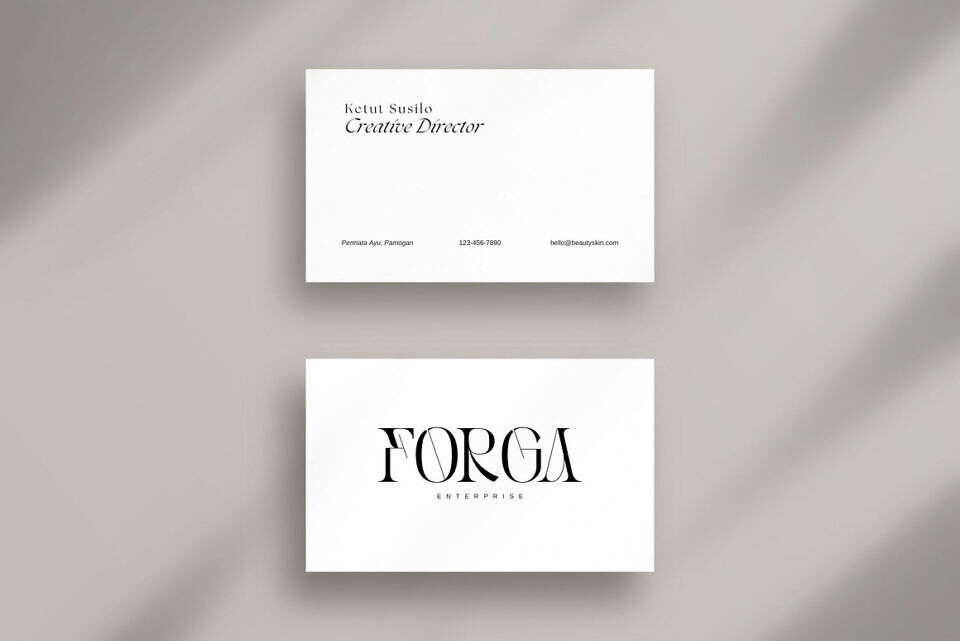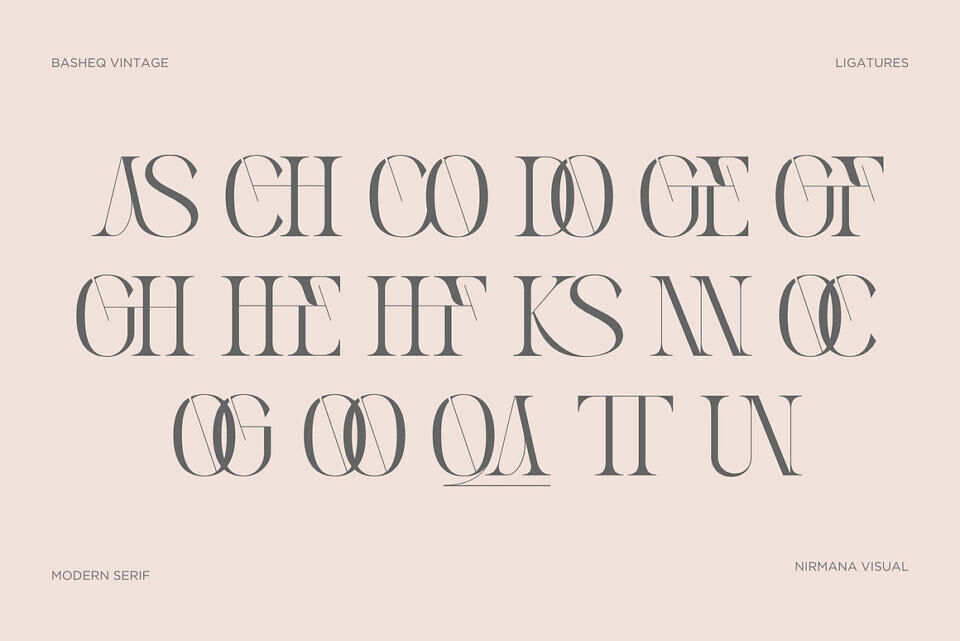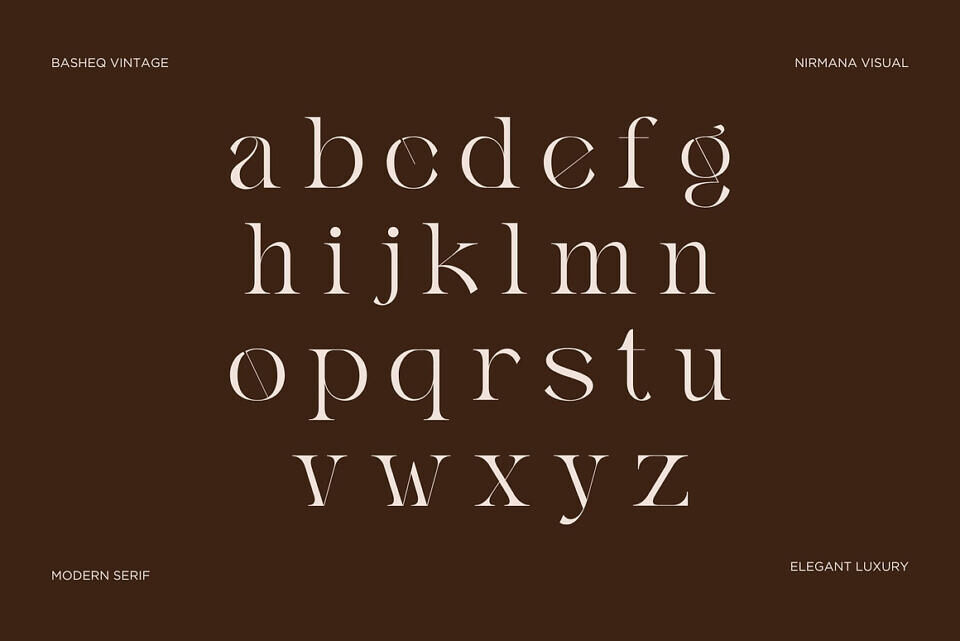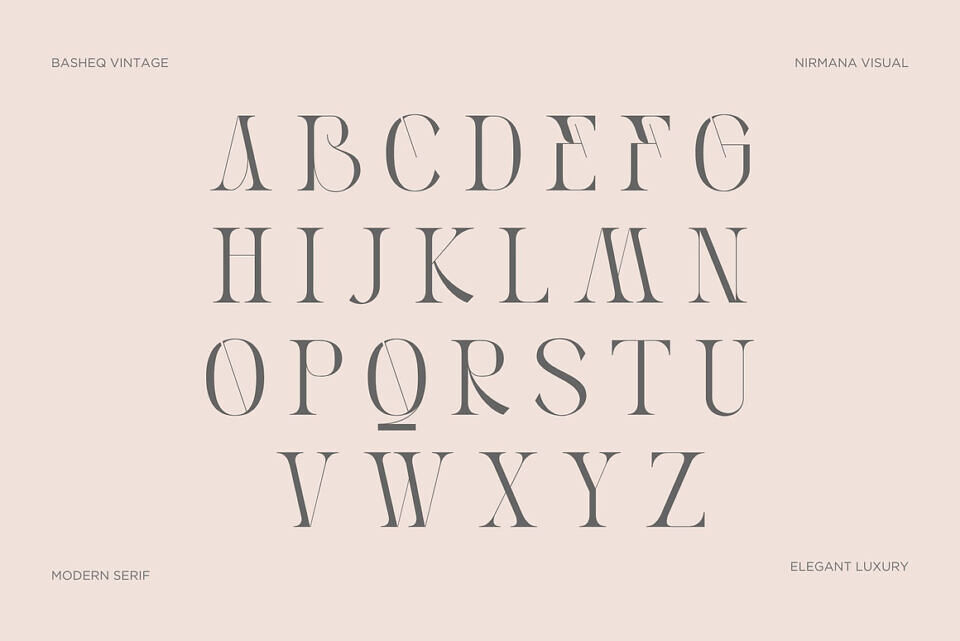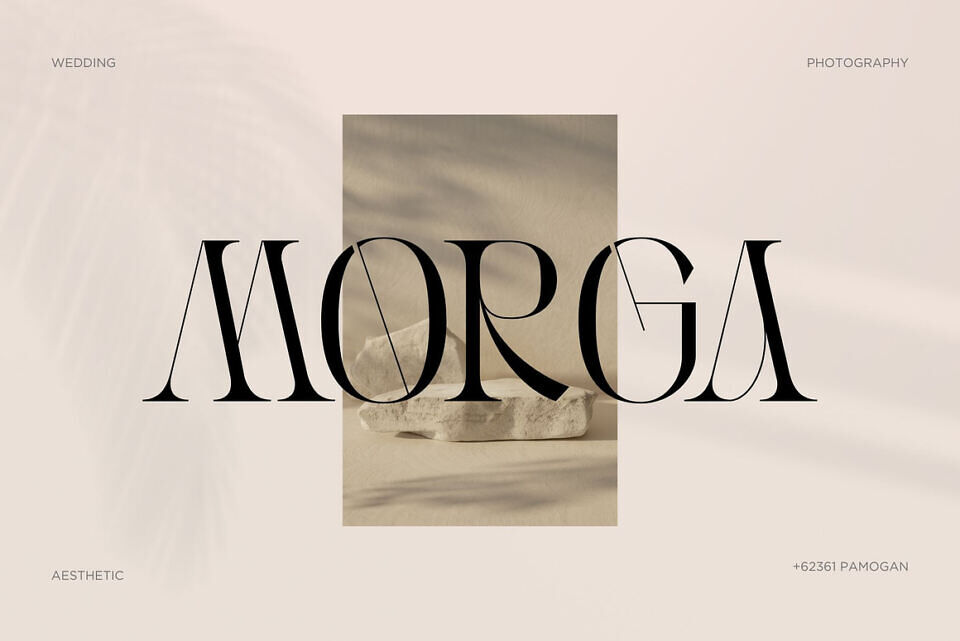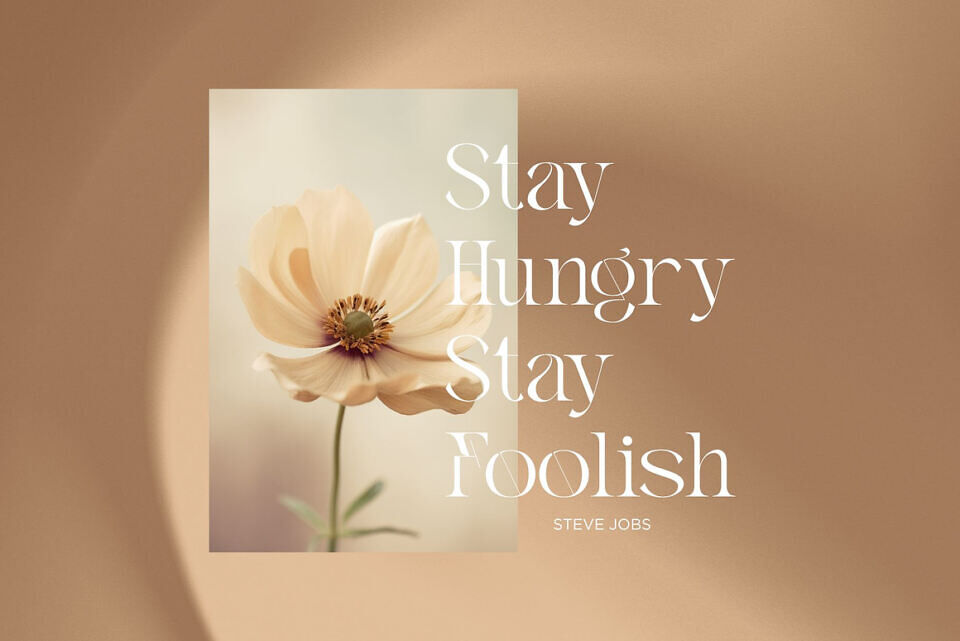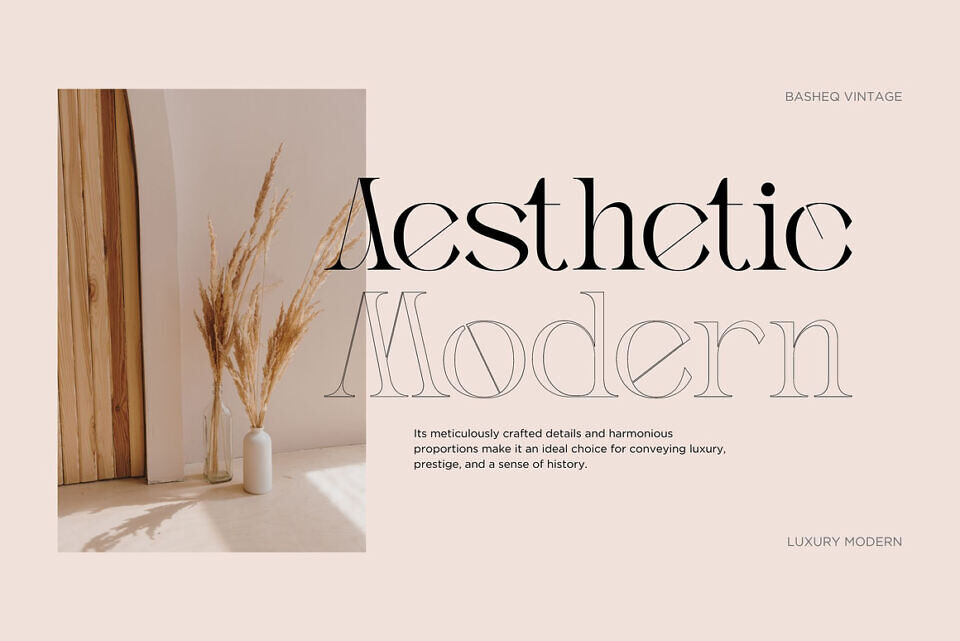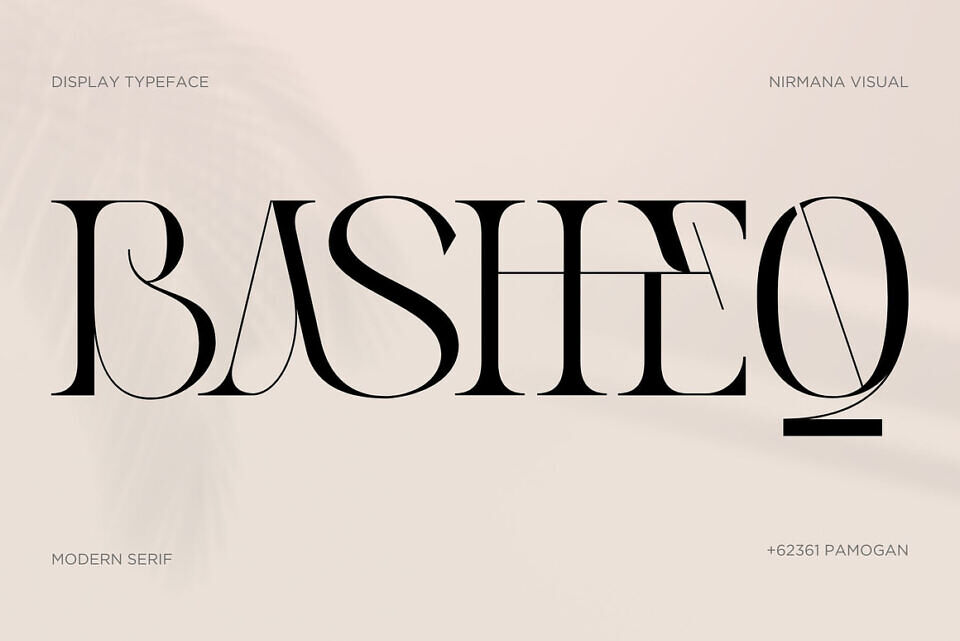
Basheq Vintage Font
Basheq Vintage is an elegant serif font embodies sophistication and refinement with its timeless and graceful design. Characterized by delicate serifs, it boasts an exquisite balance between thick and thin strokes, lending an air of elegance and readability.
Basheq Vintage’s classic and ornate style is perfect for high-end branding, editorial design, and formal invitations, seamlessly combining tradition with modern aesthetics.